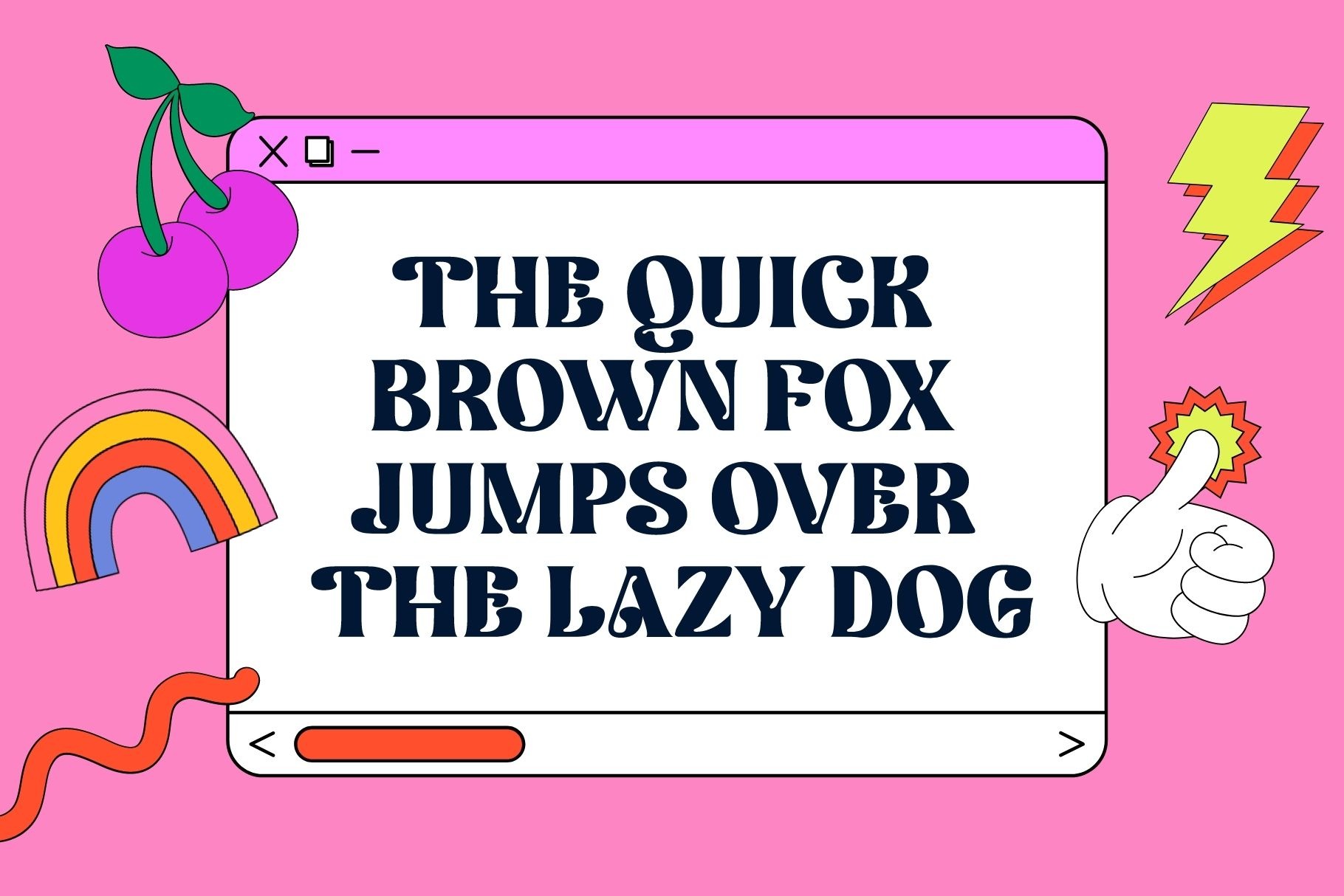
Retro Boldy Serif Font
This font is retro, fun, and playful. It really ties together your piece to make it feel retro.
Retro Boldy offers beautiful typographic harmony for a diversity of design projects, including logos & branding, social media posts, advertisements & product designs.